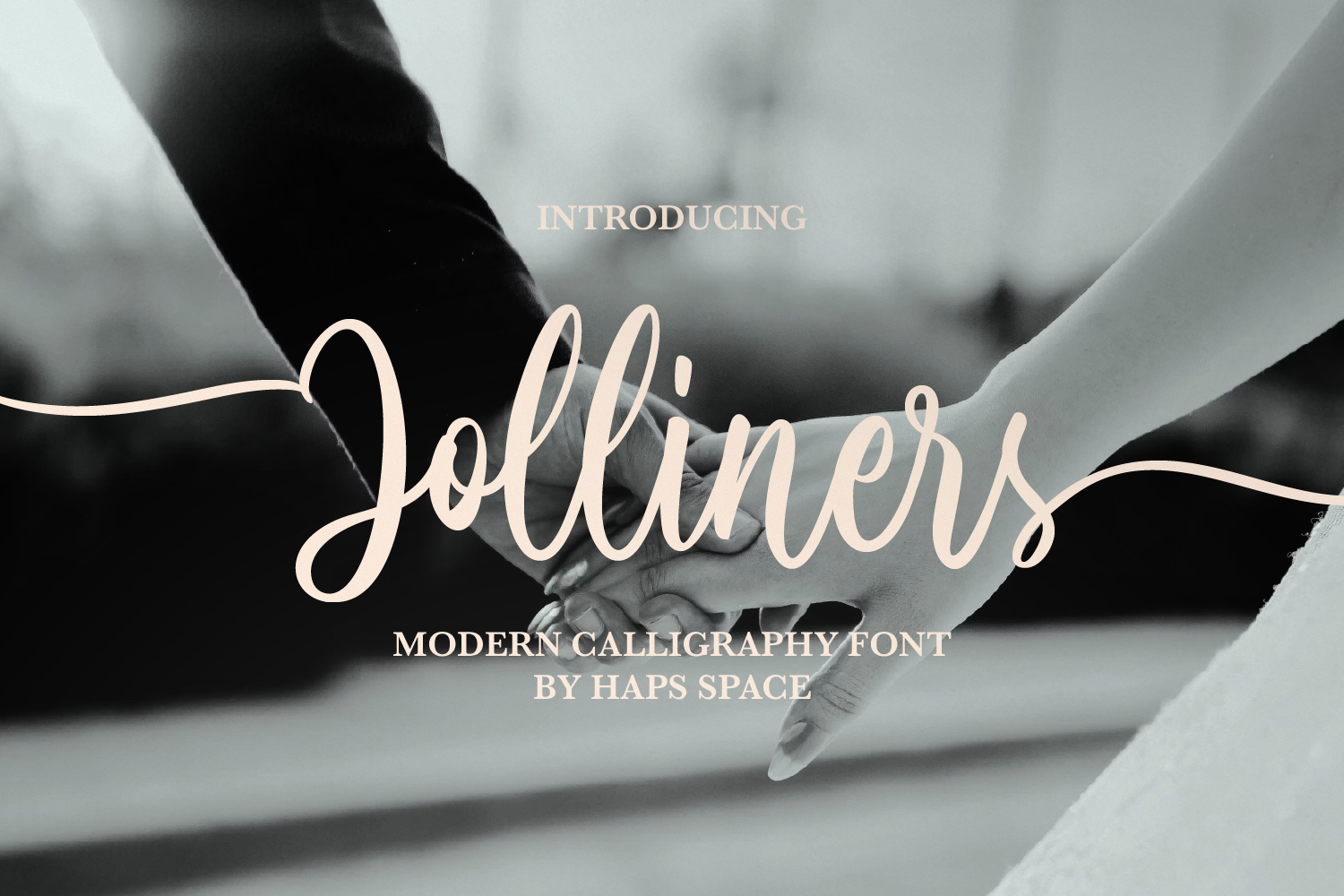
Jolliners - Modern Script Font
Jolliners Modern Script is a Modern Calligraphy Font comes with alternatives and ligatures, helps to create stunning Posters, Branding, Tshirt, Social Media Graphics and much more.